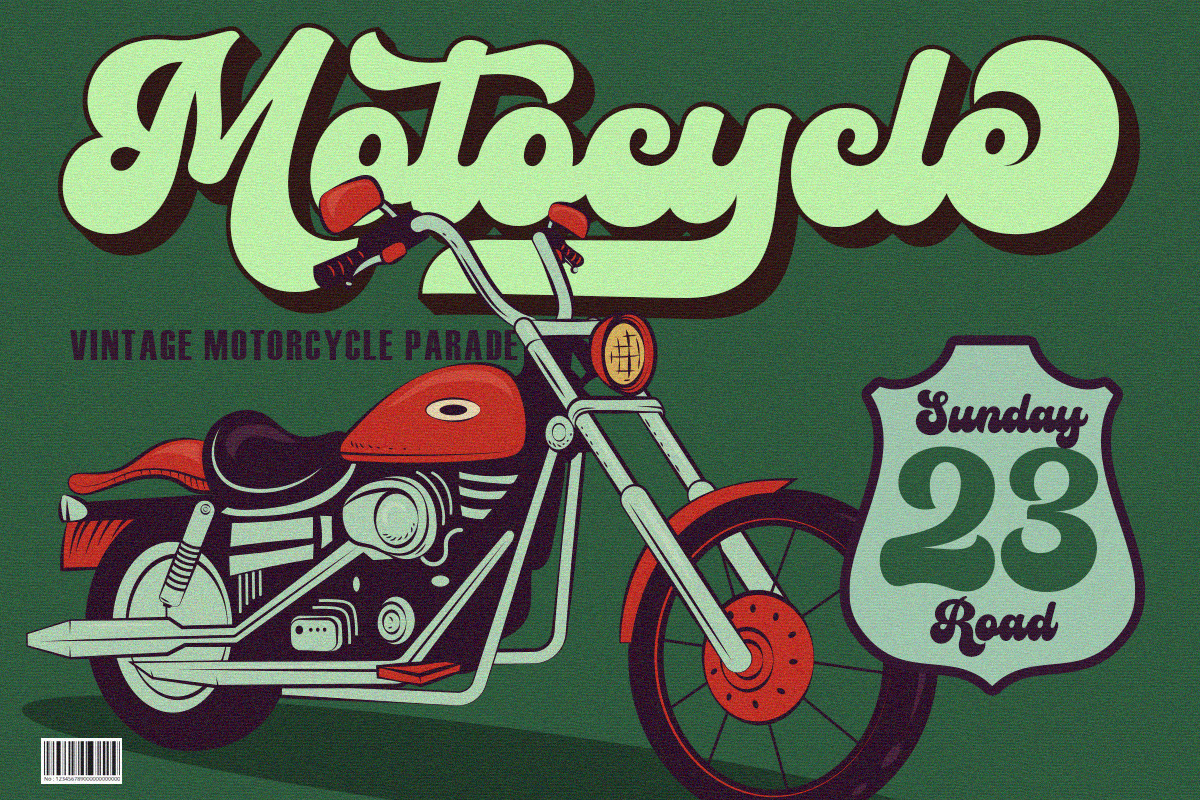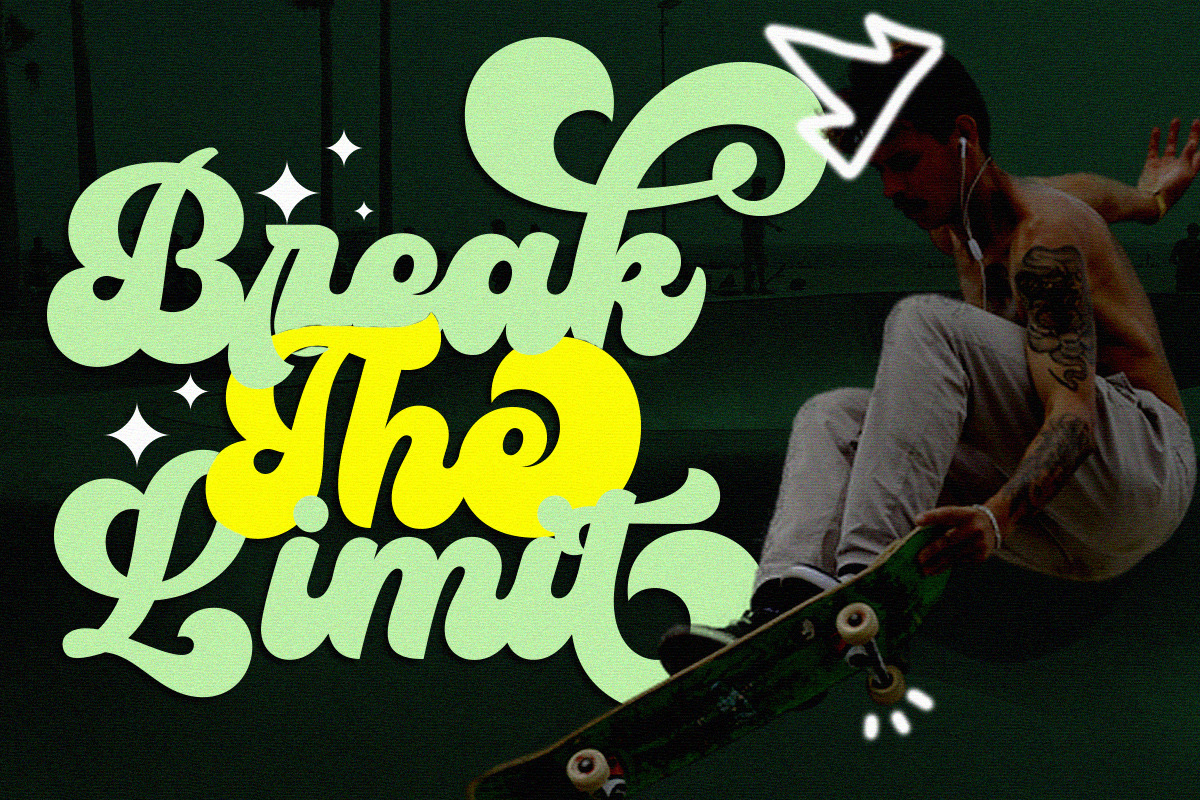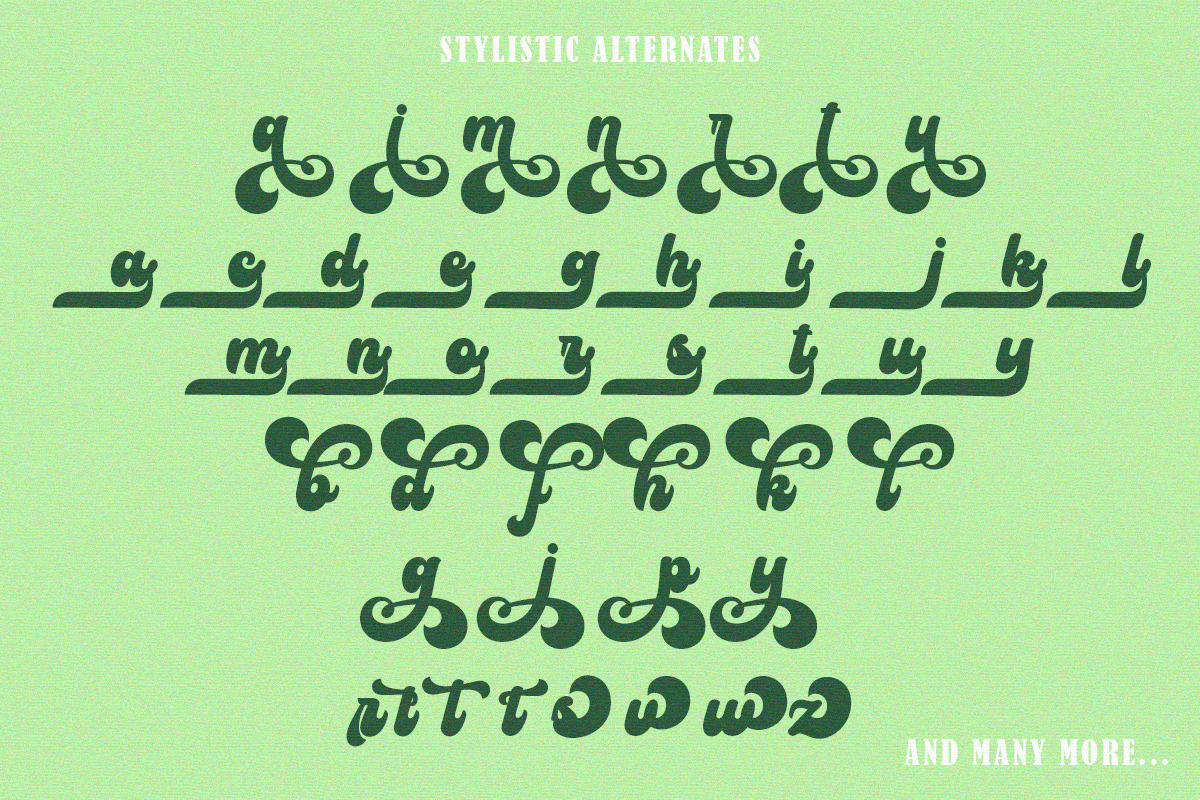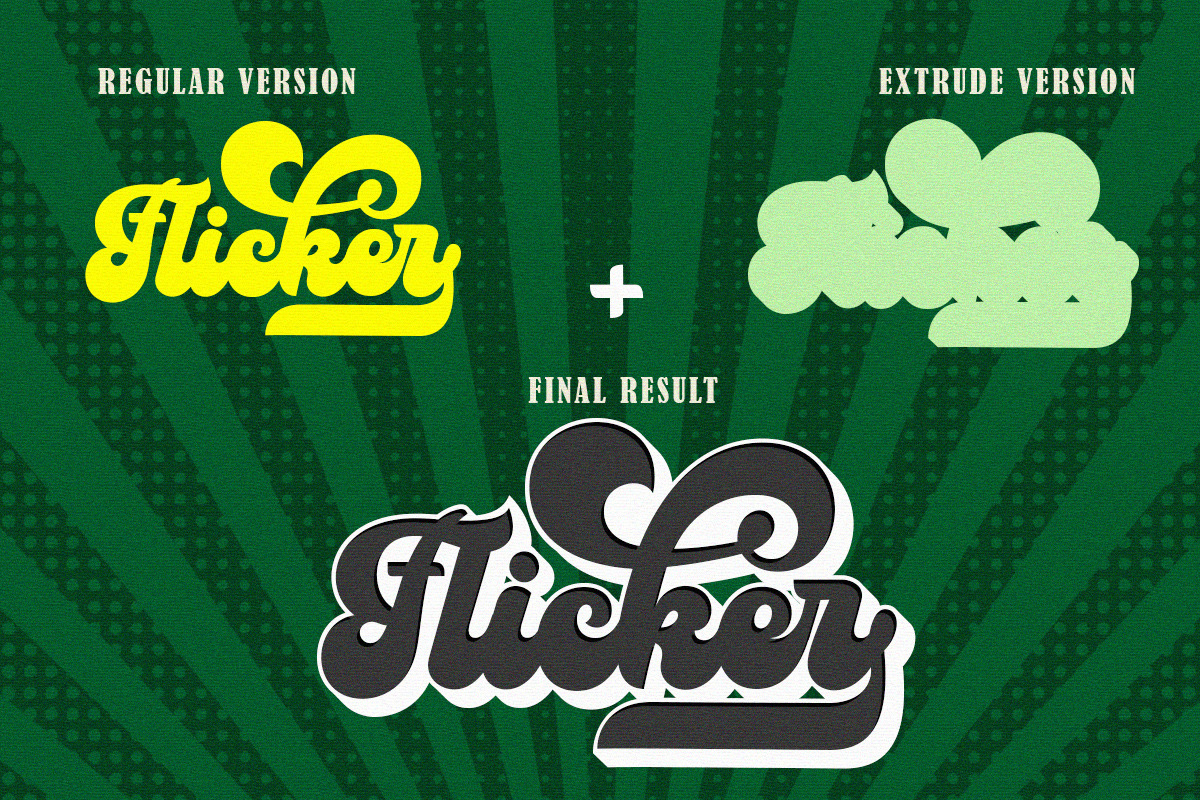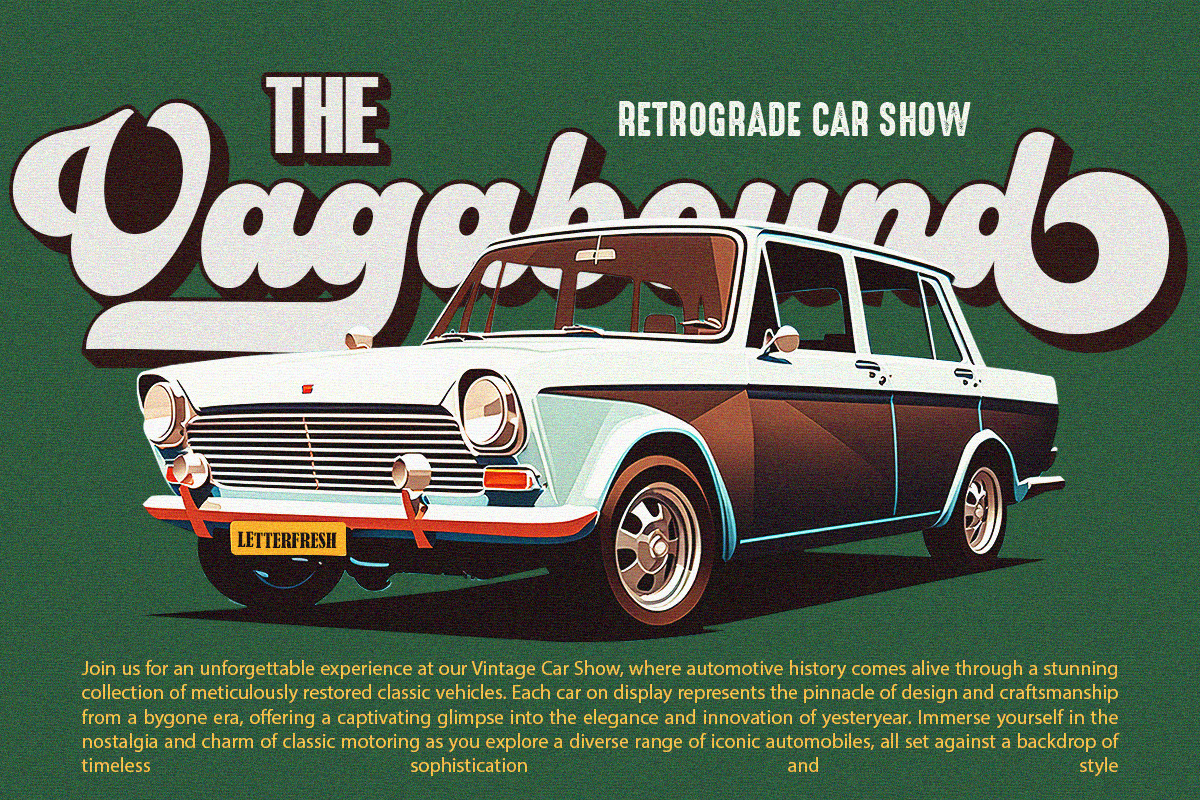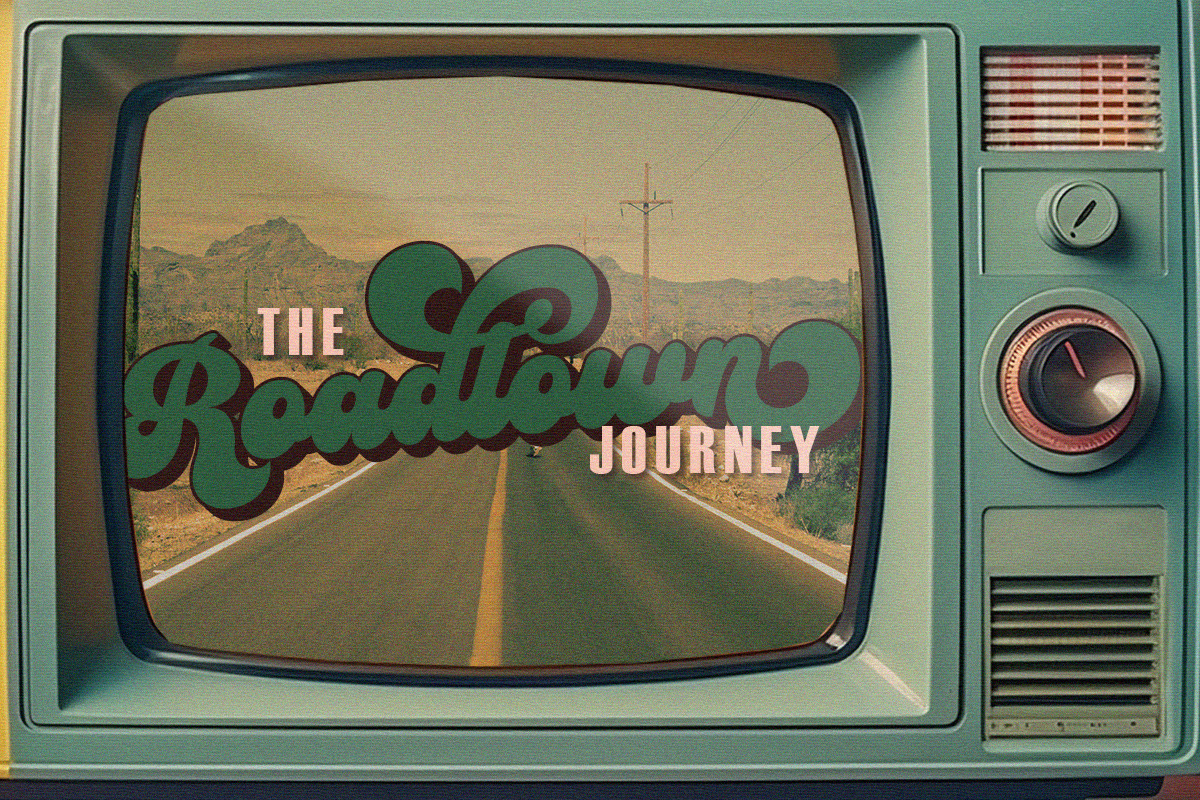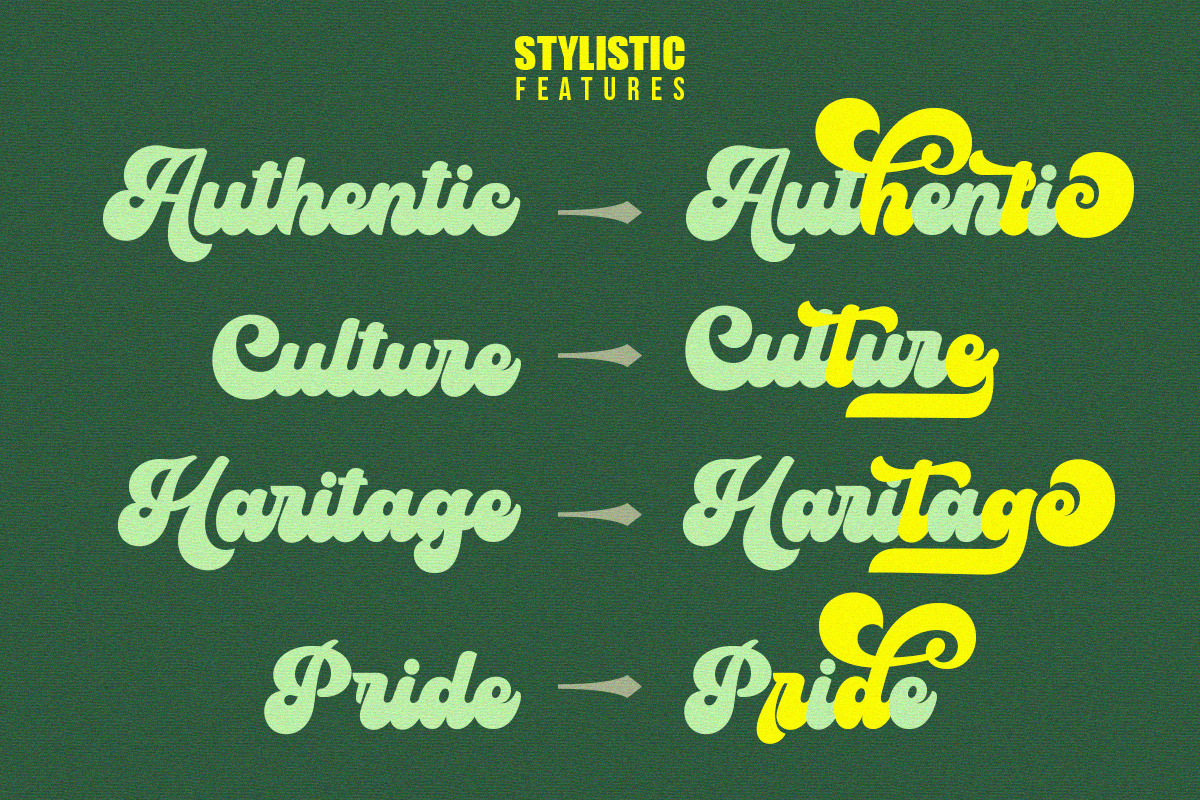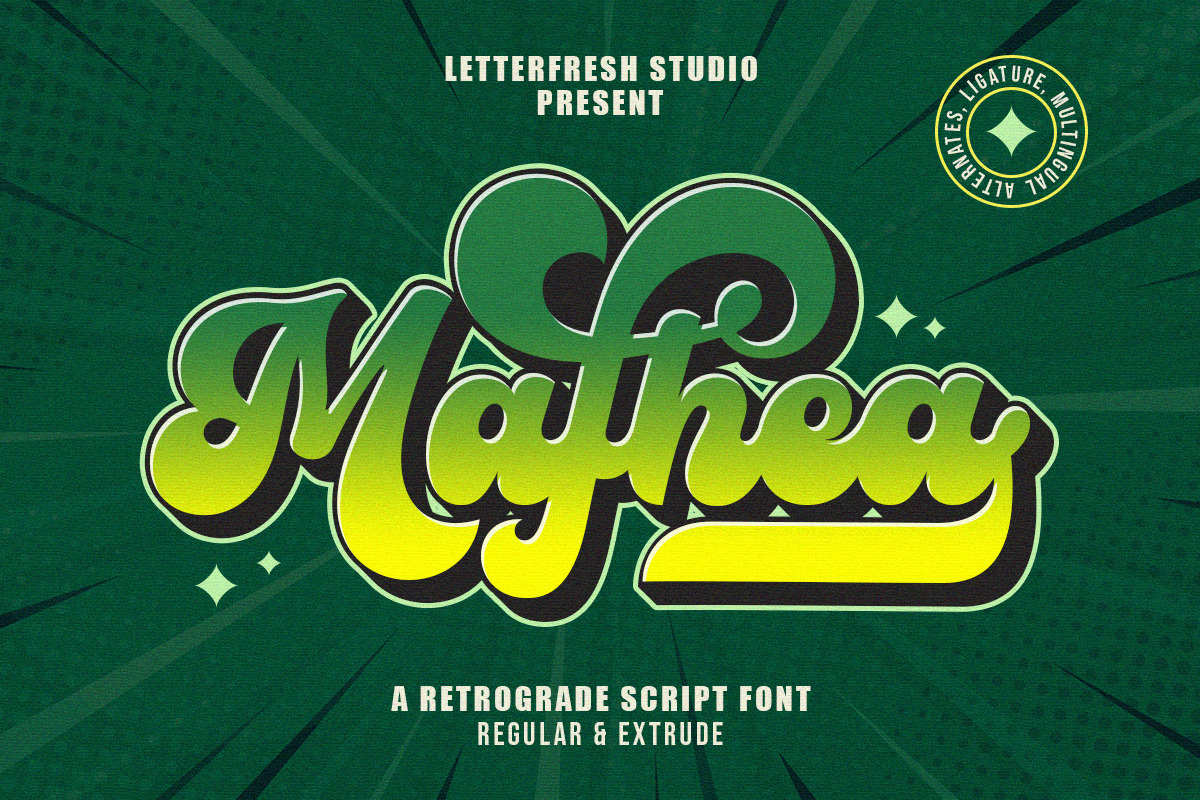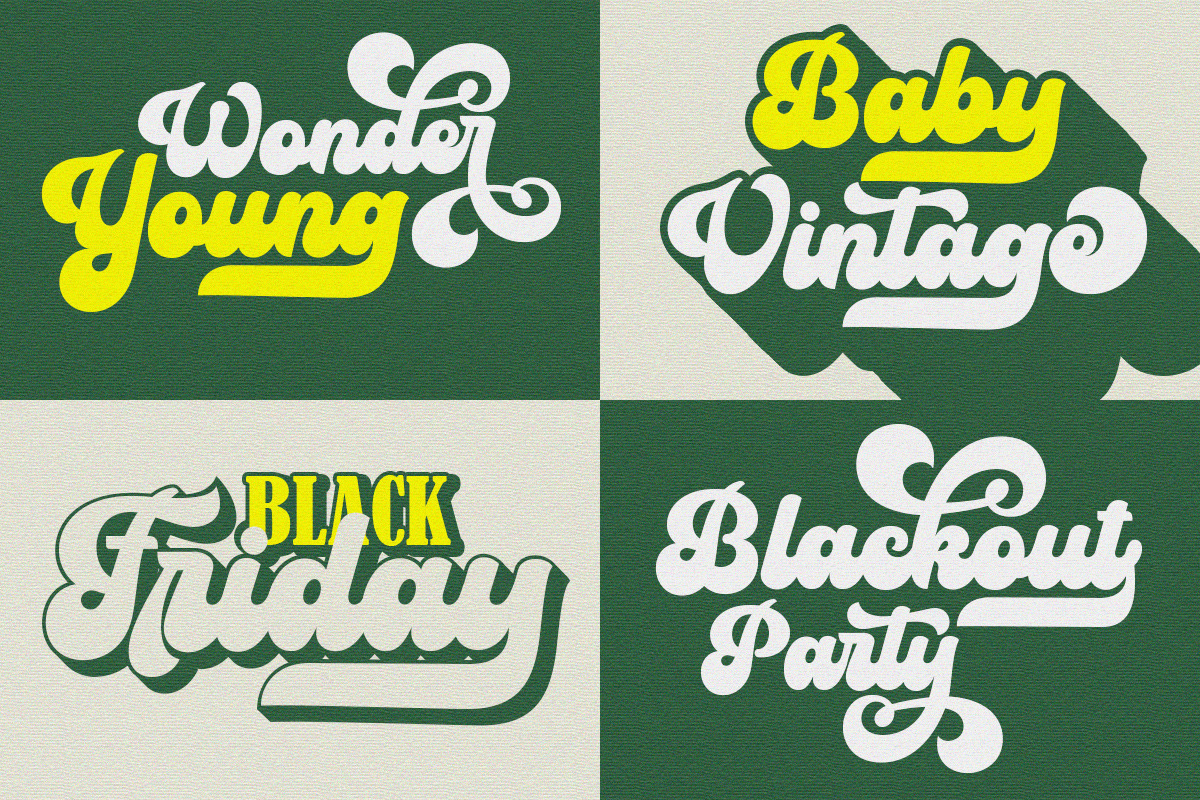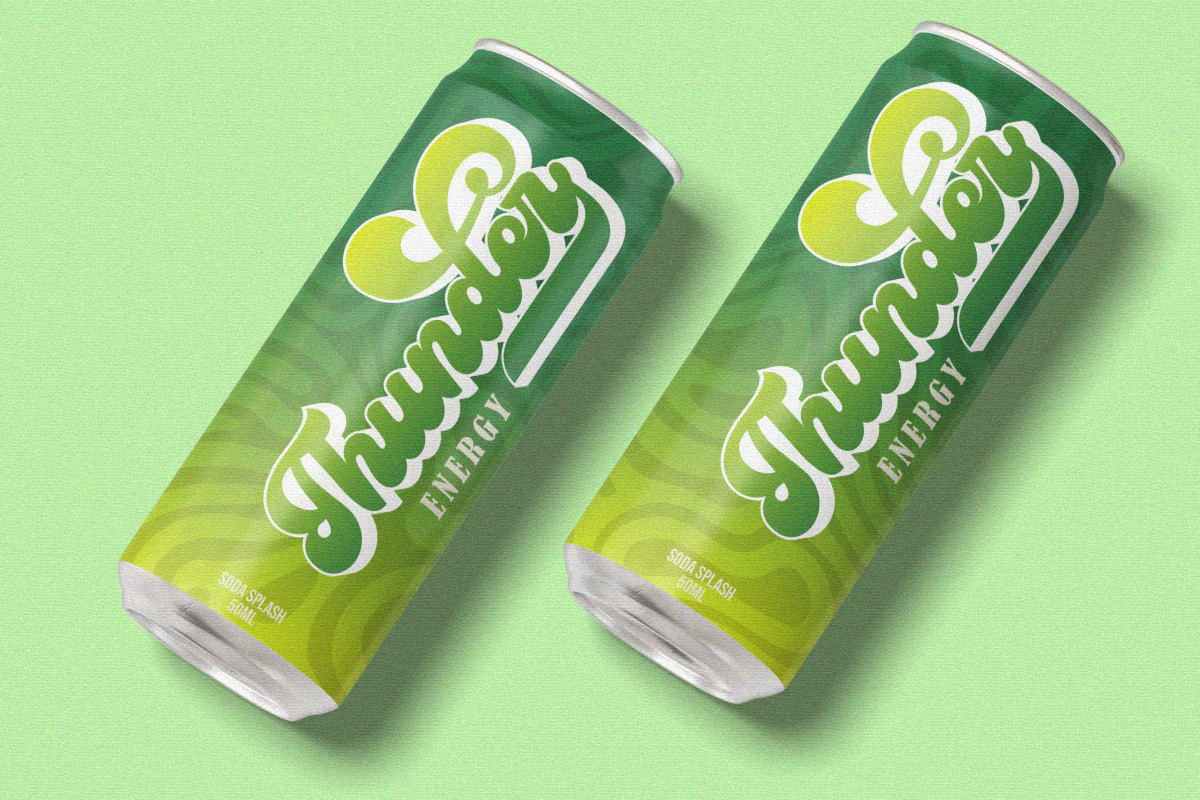
Mafhea - Vintage Retro Font
Mafhea is a Vintage retro font. Inspired by retro typography and letters in the 70s and 80s combined with a bold typography style. This font is perfect for vintage and retro designs, badges, logos, t-shirts, posters, branding, packaging, signs, book covers and more!